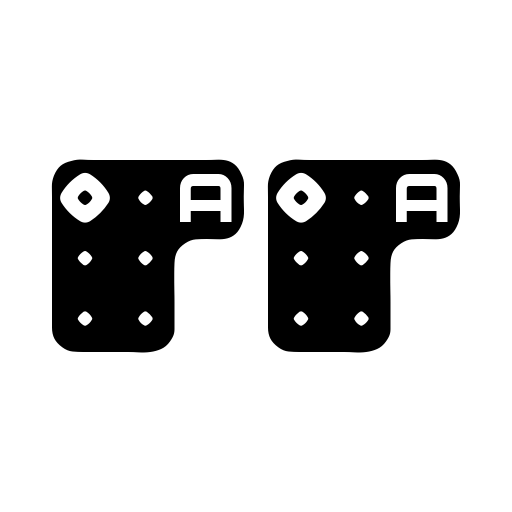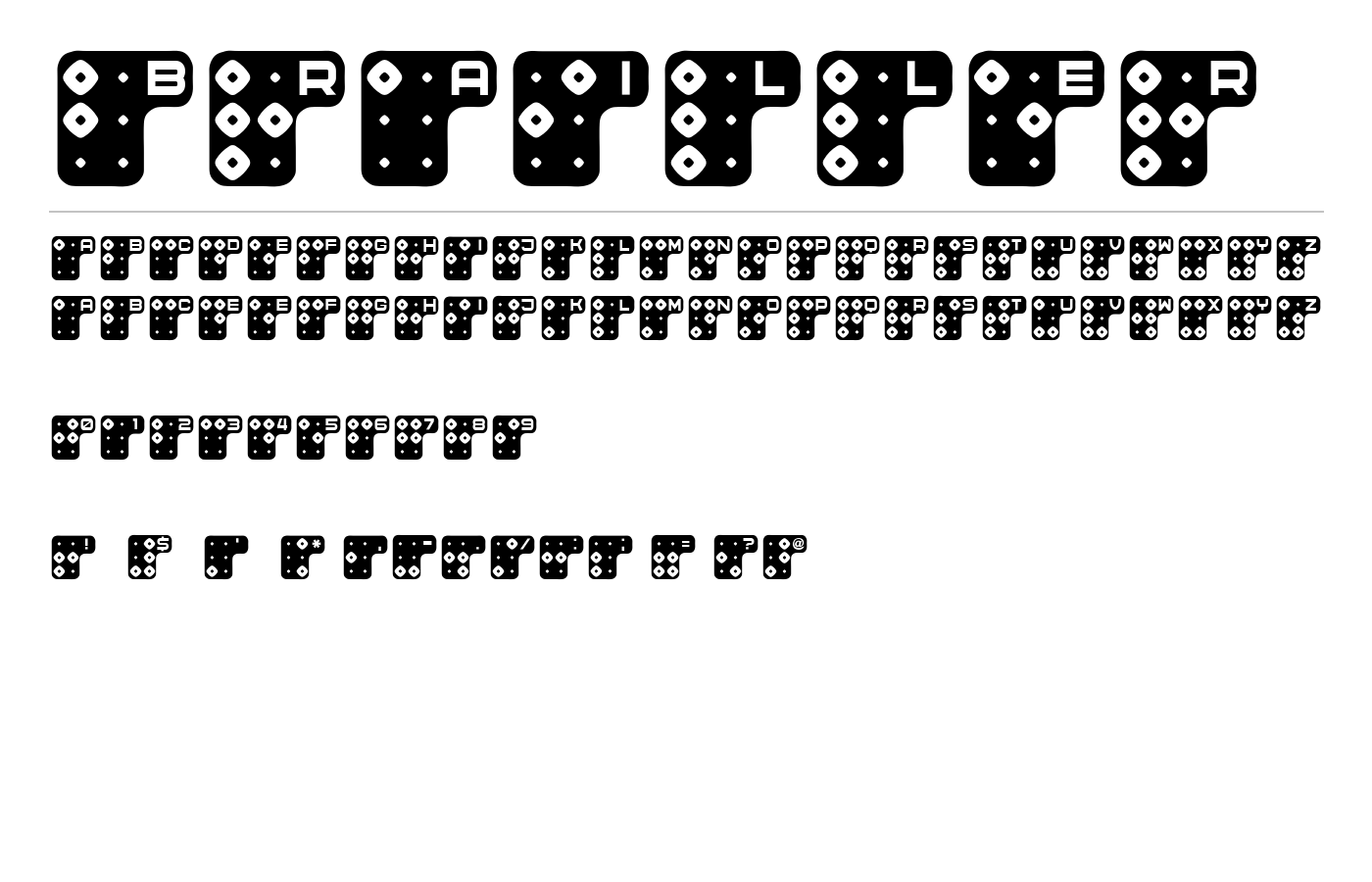
Brailler Font is a playful and bold display typeface inspired by Braille characters, featuring blocky, rounded forms dotted with Braille-like patterns. Its heavy weight and compact width create a strong visual impact, making it ideal for creative projects, awareness campaigns, and unique branding that seeks to merge tactile inspiration with graphic design. This font works best in headlines or logos where its distinctive style can stand out and convey a message of inclusivity and innovation.
Brailler Font
About Brailler Font
| Font family | Brailler Font |